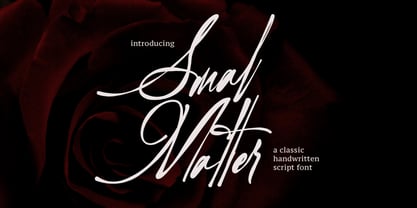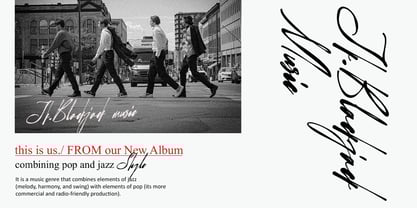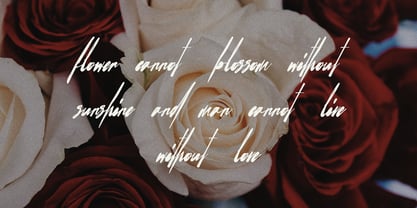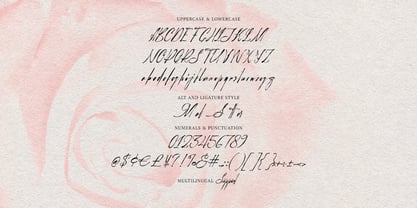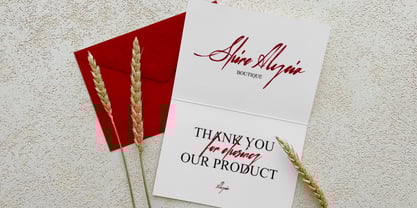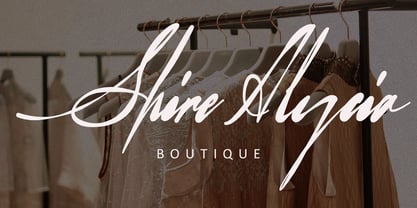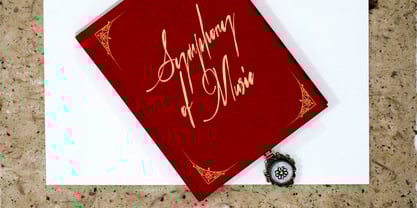
MC Smal Matter
by Maulana Creative
The MC Smal Matter Font Family was designed by Gilang Maulana and published by Maulana Creative. MC Smal Matter contains 1 styles.
Give your designs an authentic handcrafted feel. “Smal Matter Classic Handwritten Script Font” is perfectly suited to stationery, logos and much more.
Designers: Gilang Maulana
Publisher: Maulana Creative
Foundry: Maulana Creative